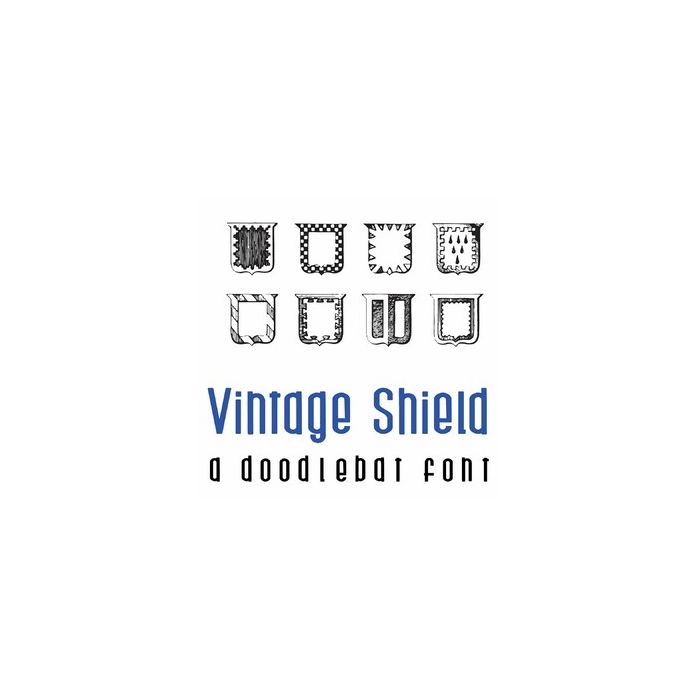
This fun doodlebat font features 26 cool vintage style shields or crests. Perfect for cards, gifts, decor, crafts, scrap book pages, planner stickers and more!